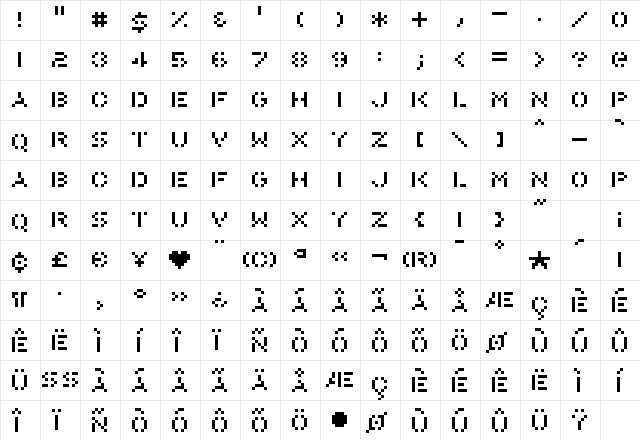
PonyRegular Regular
Design Context for PonyRegular Typeface
PonyRegular is a composed and adaptable typeface that performs quietly and consistently across a wide range of design contexts.